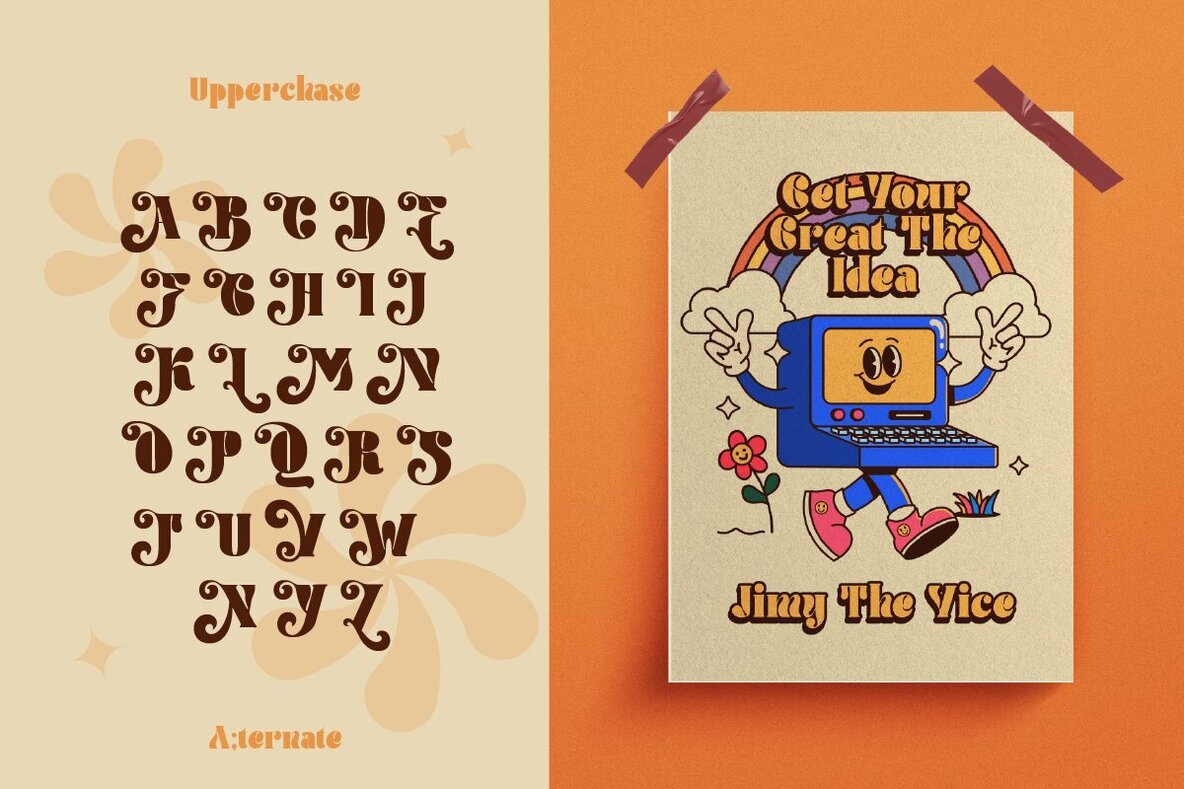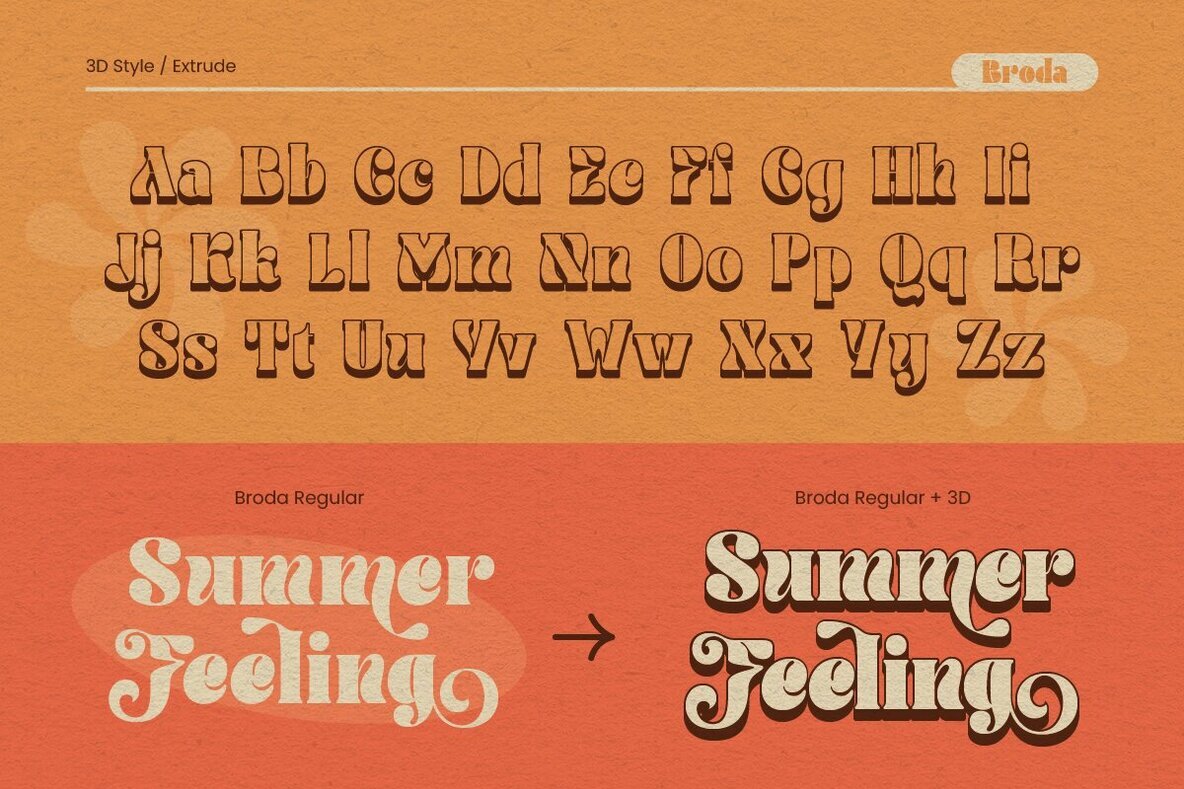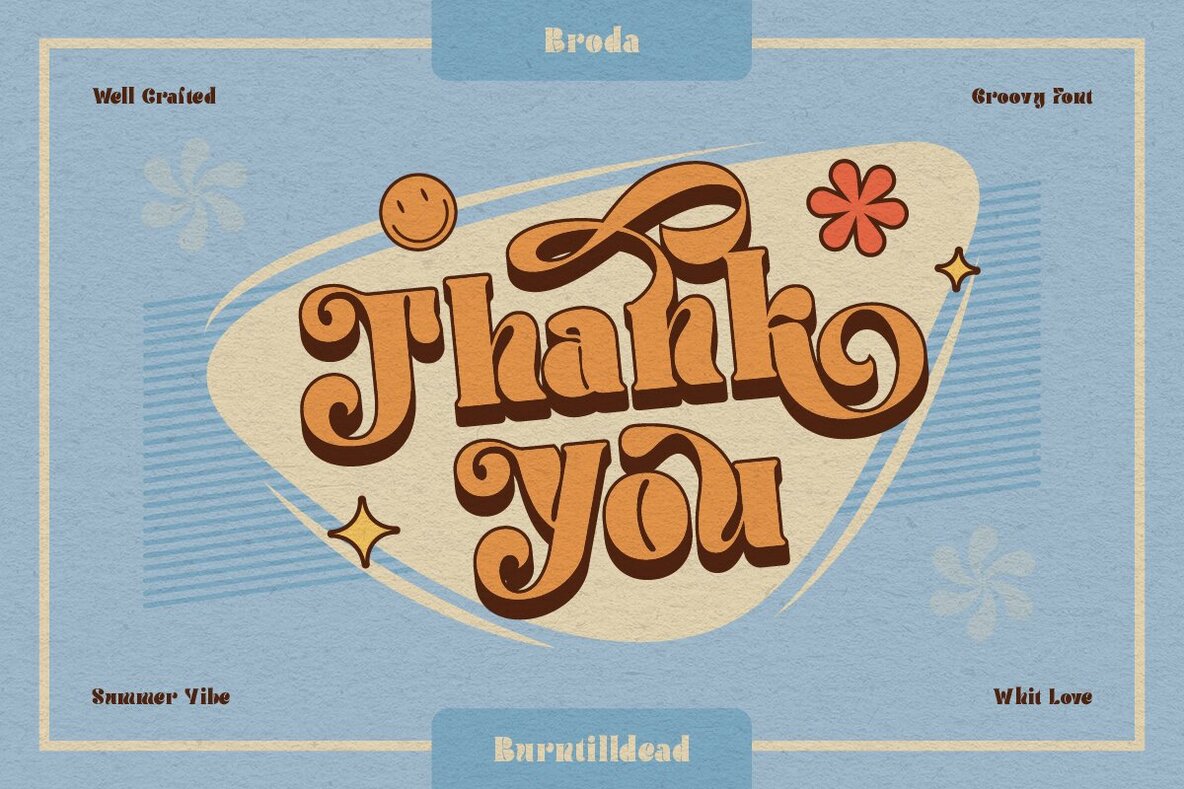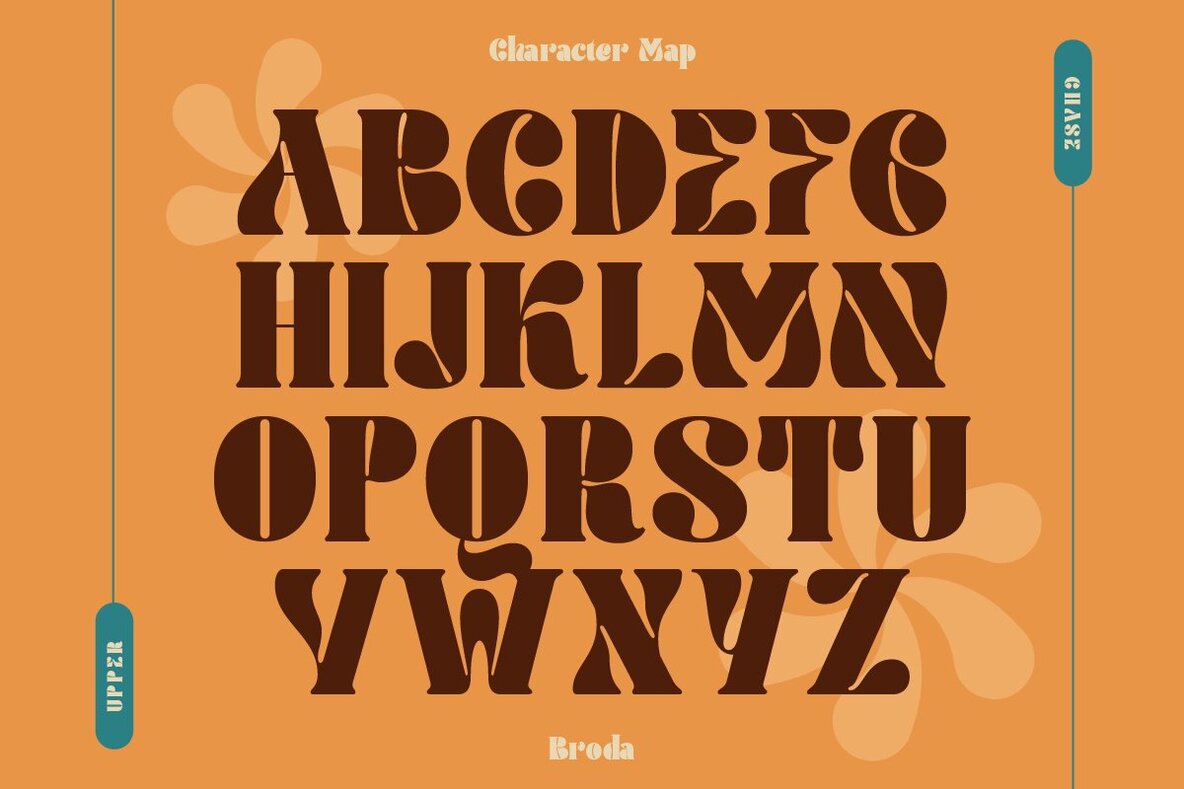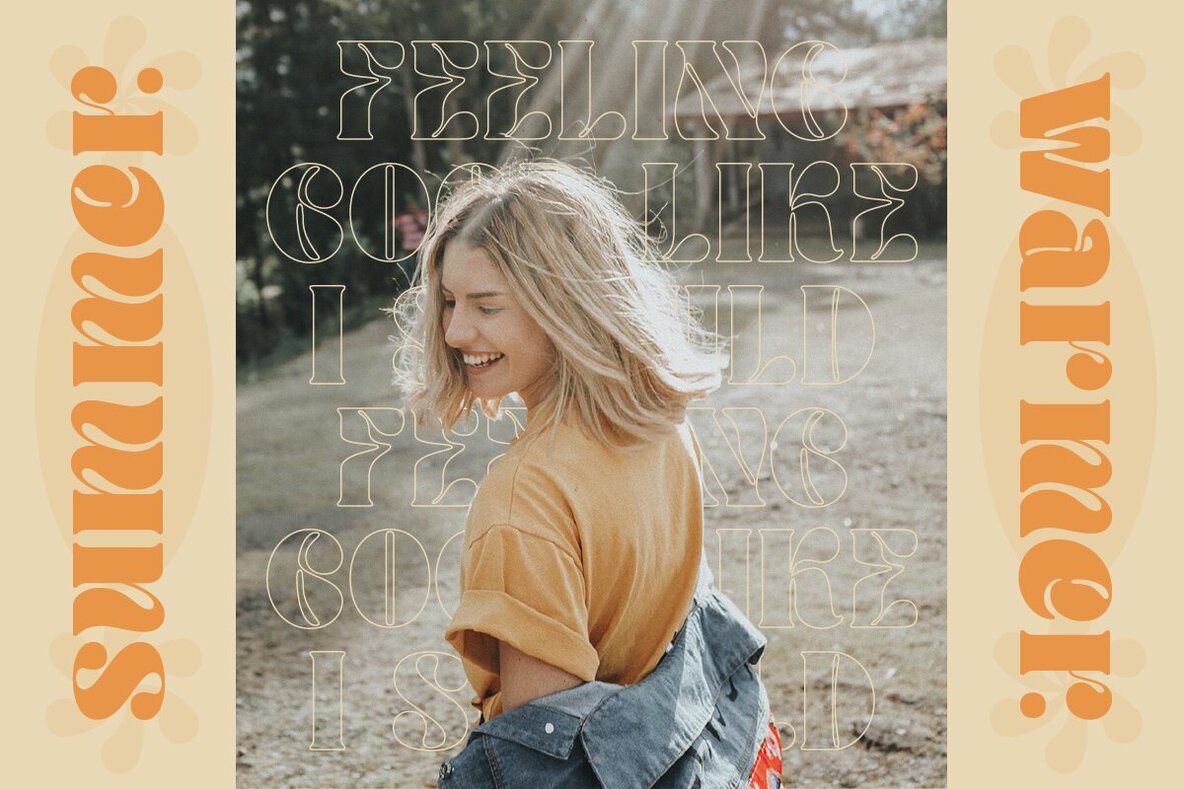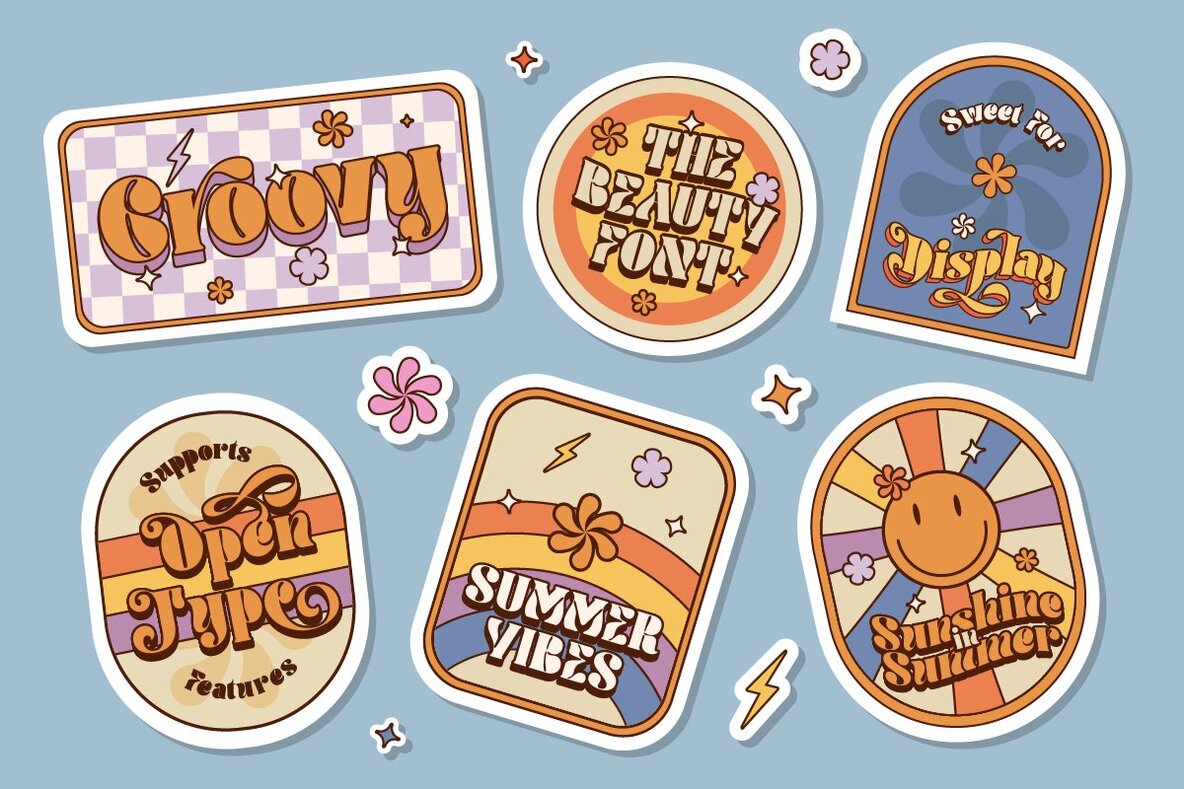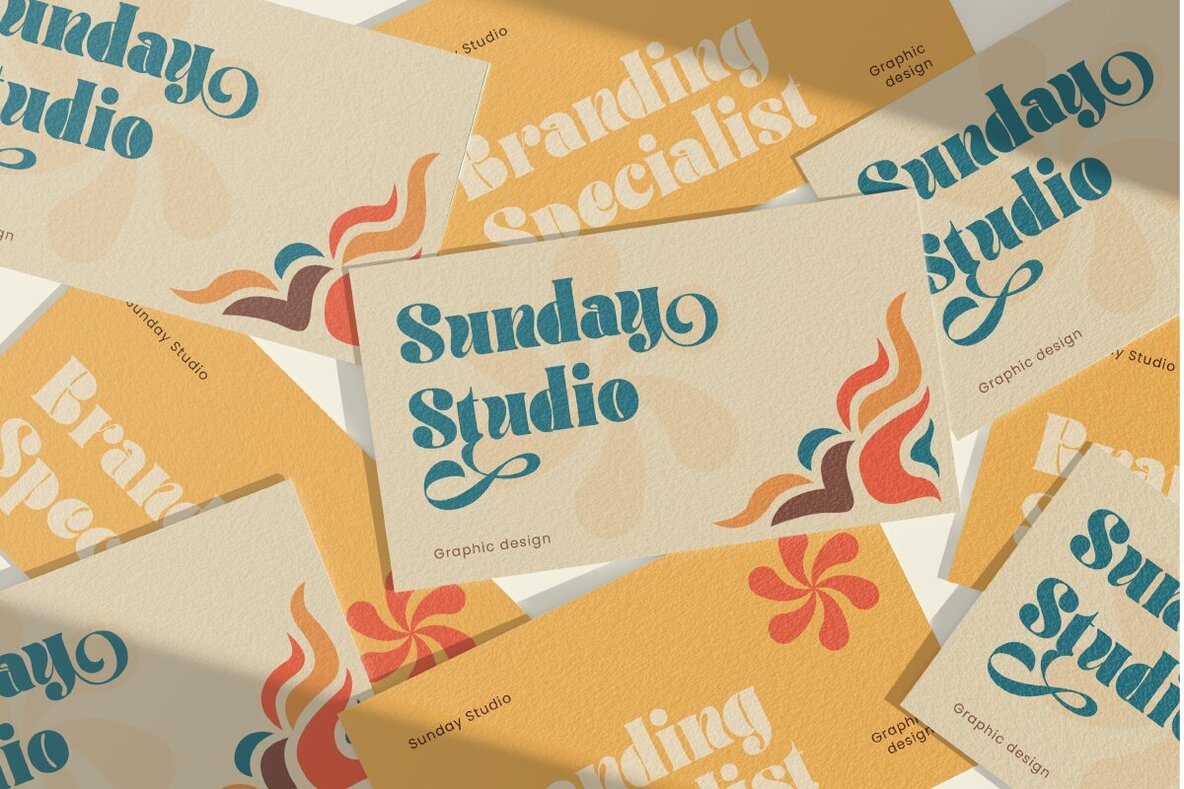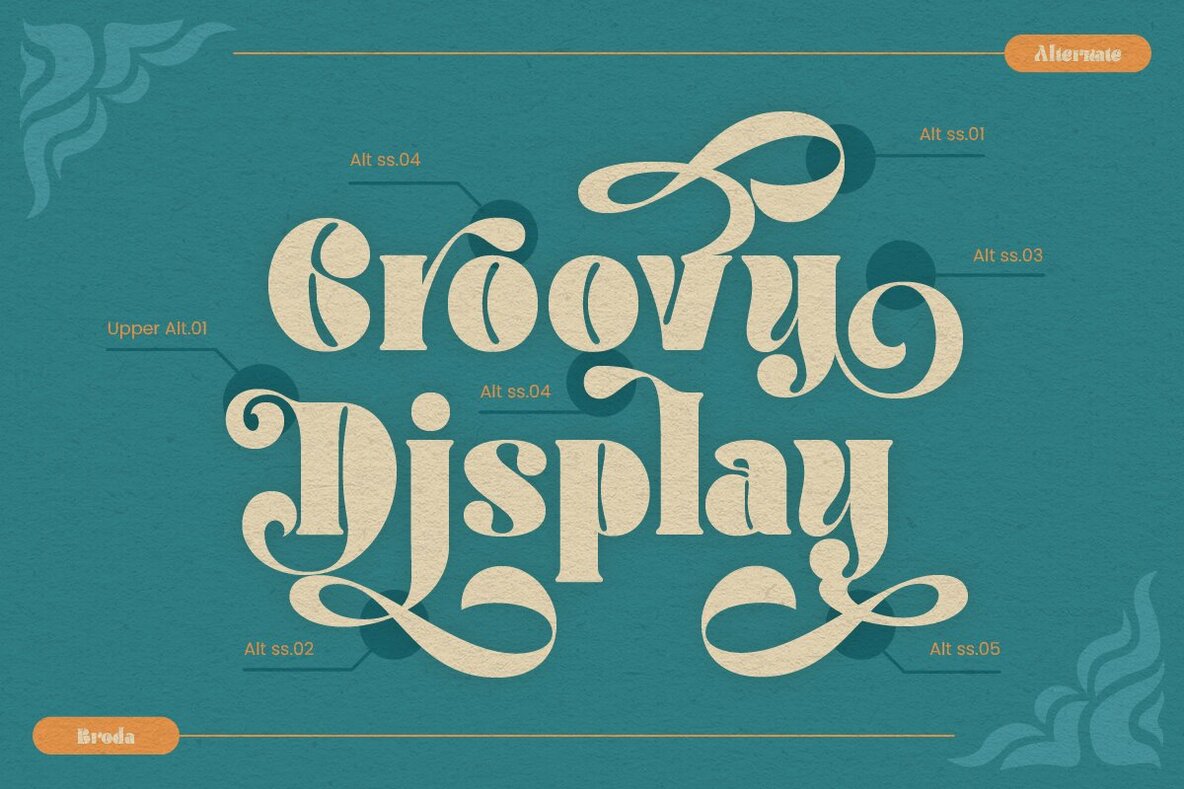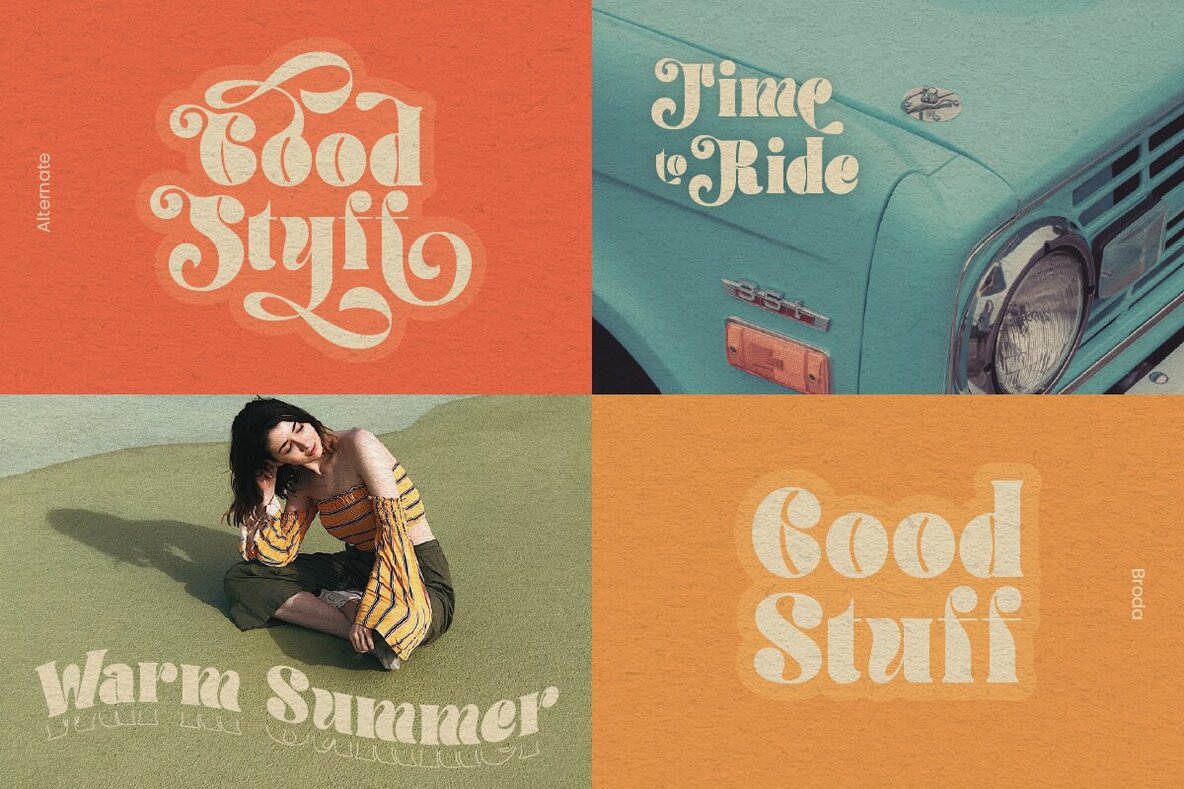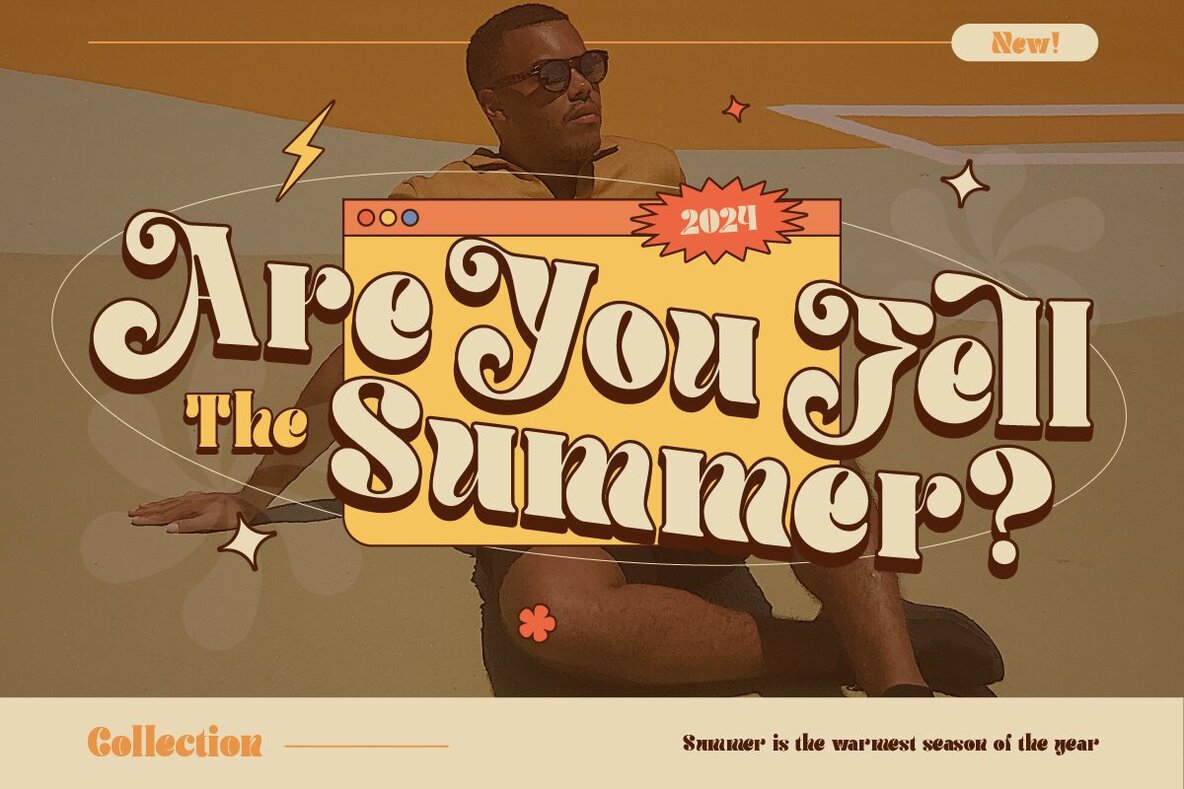
Broda Font
Groove back to the funky beats of the past with Broda groovy retro typeface! Its thick curves and playful strokes bring a timeless, classic touch to any project design, evoking nostalgia from the swinging 60s and 70s. This font is perfect for logos, covers, posters, quotes, magazines, product packaging, merchandise, social media, and marketing materials. Broda includes an extrude style to make your designs truly stand out.Features: